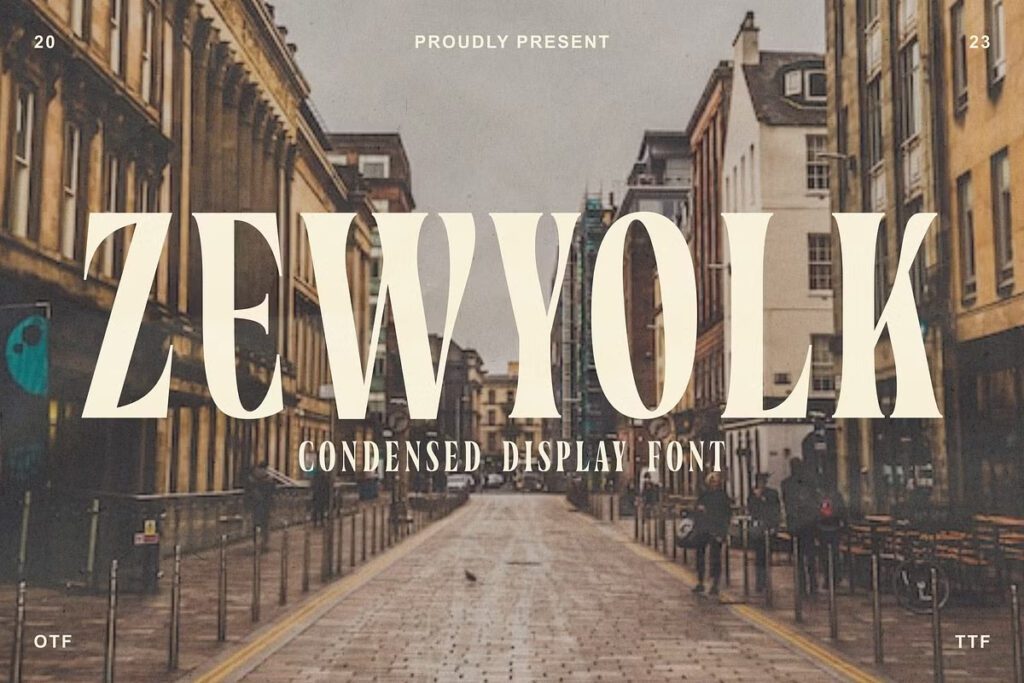
Zewyolk Font: Sleek, Modern, and Sophisticated
Introducing Zewyolk, a condensed display font that embodies the essence of modern elegance. Whether you’re looking to create striking logos, impactful headlines, or any design that demands a clean and professional appearance, Zewyolk is the perfect choice for achieving a refined and stylish look.
Why Zewyolk Stands Out
1. Clean and Minimalist DesignZewyolk’s sleek, tall, and narrow letterforms make it stand out as a contemporary and minimalistic font. Its streamlined design ensures your text is easy to read while still maintaining an impactful and bold visual presence. The condensed style allows designers to fit more content in tighter spaces without sacrificing legibility.
2. Perfect for Modern BrandingIf you’re working on a branding project or creating logos that need to feel both modern and professional, Zewyolk is an excellent fit. Its unique blend of refinement and boldness ensures your brand identity feels elevated and stylish. It creates a strong visual impact without overwhelming your design, making it versatile for a wide range of projects.
3. Ideal for Headlines and Display TextZewyolk’s tall, condensed letters are perfect for use in headlines, posters, and advertising. The font’s proportions are designed to grab attention, making sure your headlines stand out and leave a lasting impression. Whether you’re designing for print or digital, Zewyolk’s clean lines and modern style will elevate your projects.
Key Features of Zewyolk Font
Refined and elegant condensed display font.
Ideal for logos, headlines, and branding projects.
Tall, narrow design for a sleek and modern look.
Perfect for creating bold and impactful visuals while maintaining readability.
Why Choose Zewyolk?
Zewyolk is more than just a font; it’s a tool for making a bold statement. Its condensed nature allows designers to create impactful designs without overcrowding the layout. Whether you’re working on modern branding, editorial design, or social media graphics, Zewyolk will add a touch of sophistication and style to your work.
Make Your Designs Sleek and Refined with Zewyolk
If you’re looking for a font that embodies modern elegance and simplicity, look no further than Zewyolk. Its clean, narrow design ensures your text looks professional, sleek, and ready to make a lasting impression.